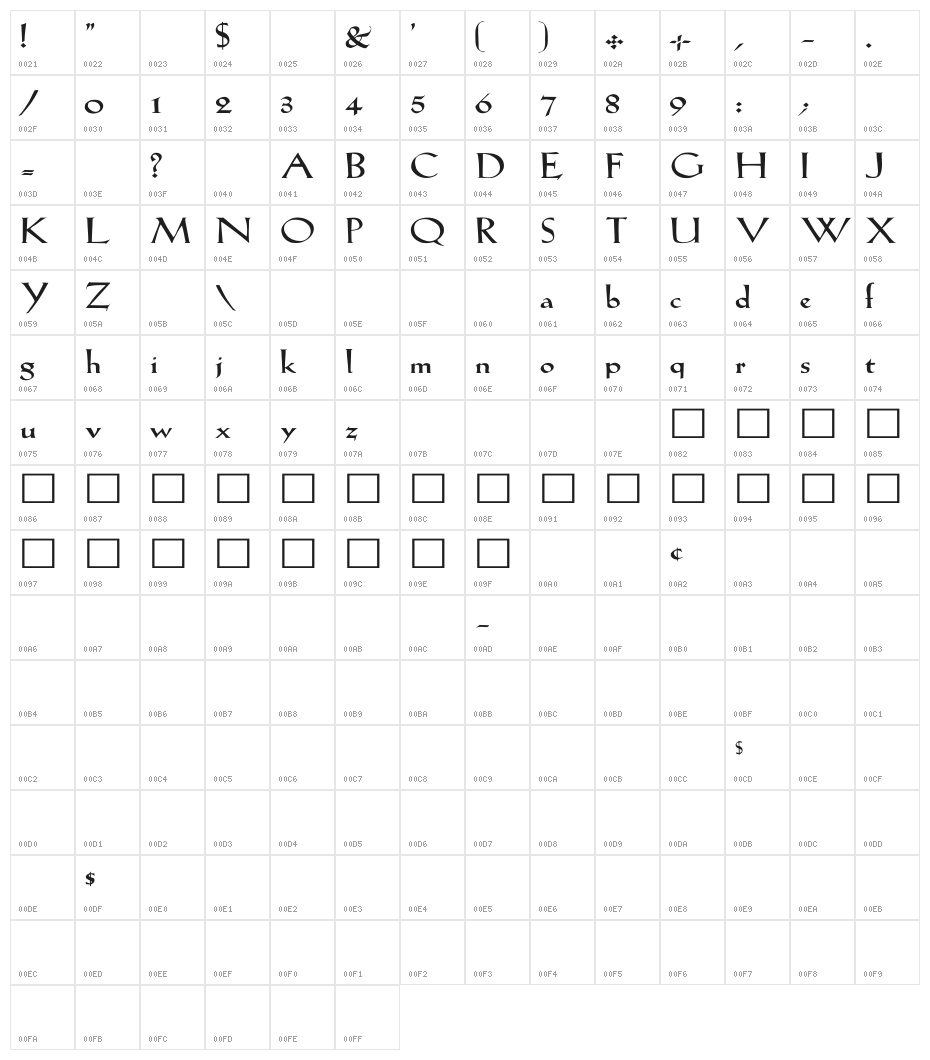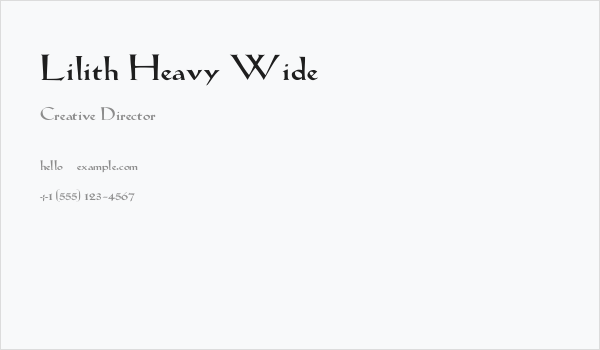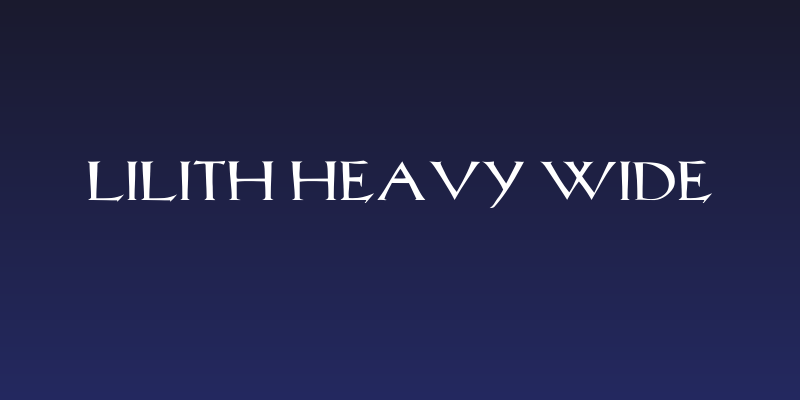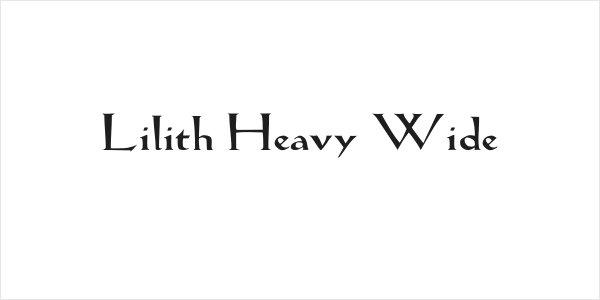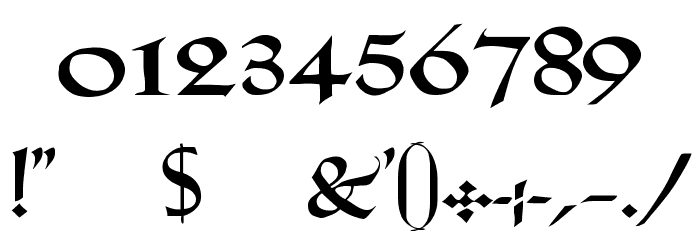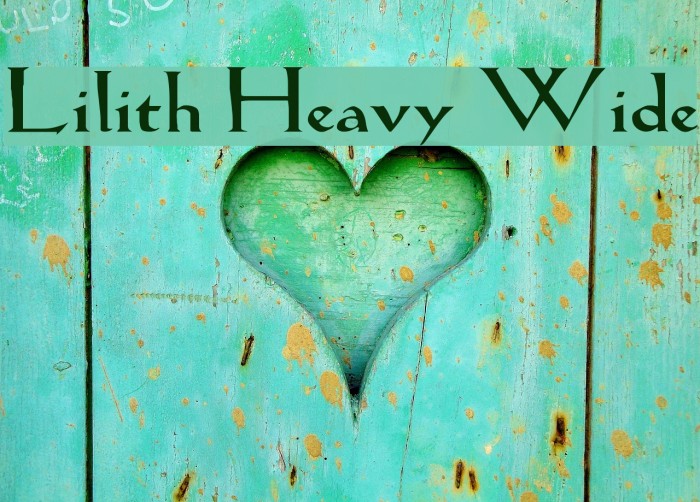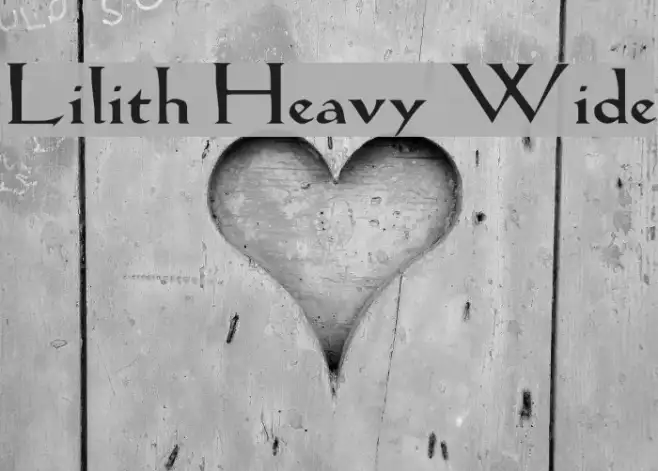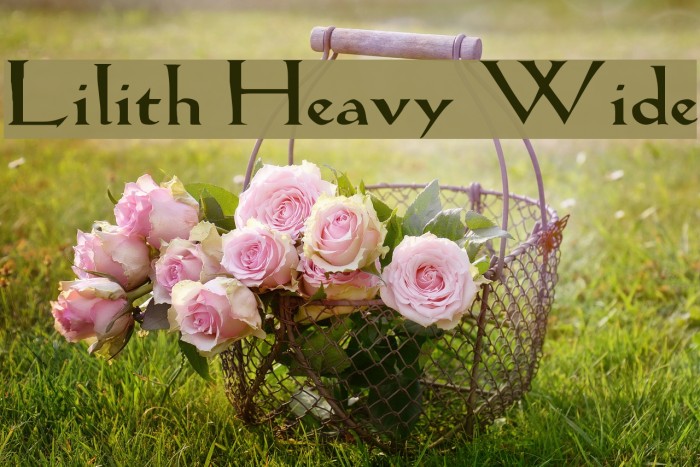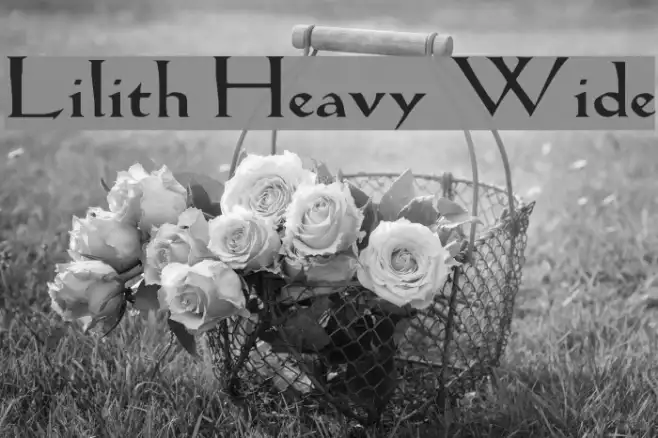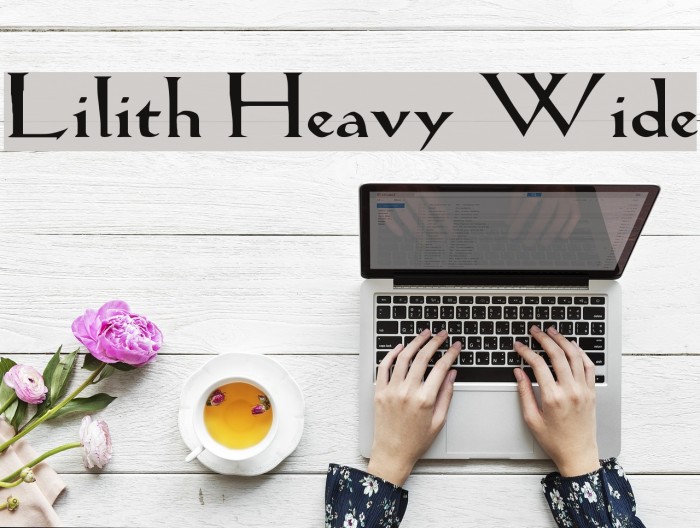
Lilith Heavy Wide Font
Lilith Heavy Wide Description
This font exudes a bold and dramatic flair, characterized by its sharp, angular serifs and pronounced strokes. The uppercase letters have a commanding presence with their wide stance and pointed edges, while the lowercase letters maintain a consistent style with a slightly more compact form. The numerals are equally bold, ensuring readability and impact. Special characters are designed with unique flair, adding to the font's distinctive appearance. Overall, this typeface combines traditional serif elements with a modern twist, making it suitable for attention-grabbing designs.
| Proposed Projects | Ideal for branding, headlines, posters, and any design requiring a strong visual impact. |